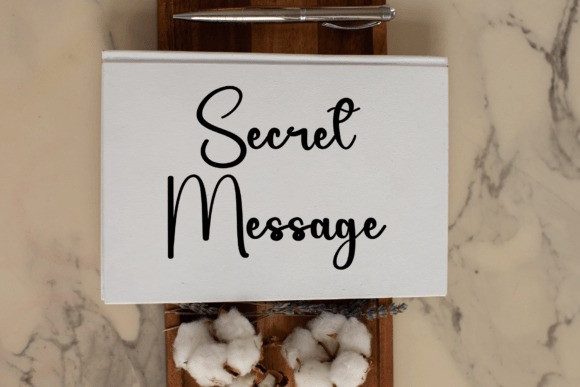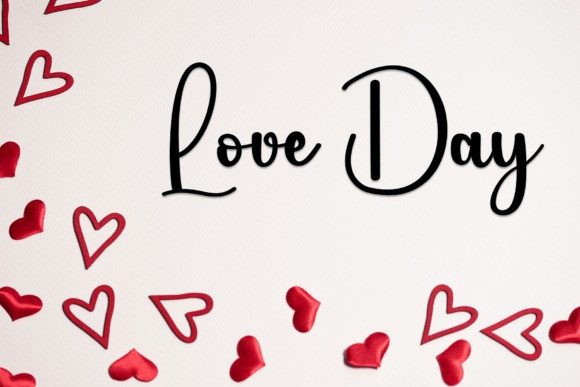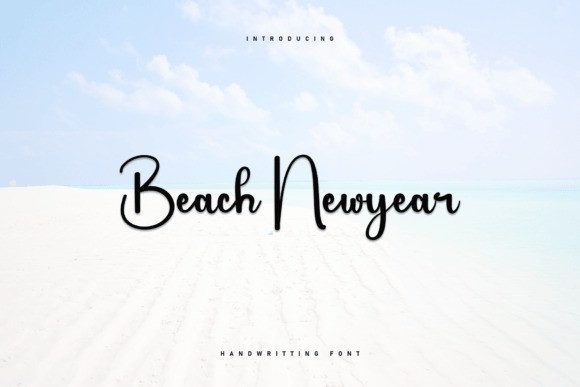
Beach Newyear Script Font
Beach Newyear Script Font is a charming handwritten font filled with a sense of heartfelt perfection. Its smooth strokes and organic lines evoke a relaxed atmosphere, making it perfect for a variety of design projects. Whether used for branding, invitations or social media graphics.